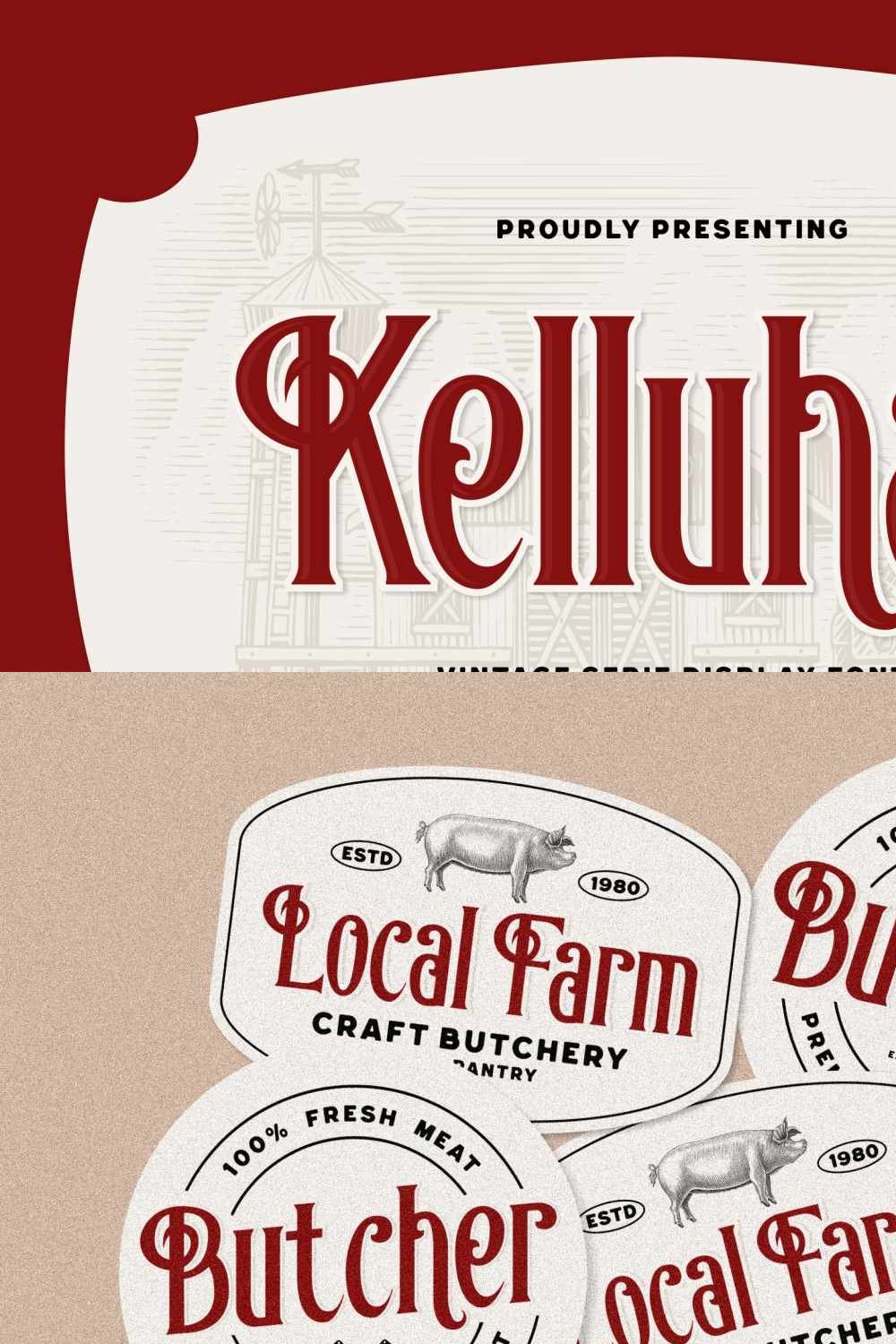
Kelluhan is a vintage typeface with visual elegance, smooth curves, and beautiful ligatures clear, making your work look true and attractive.
A very versatile font that works in both large and small sizes. This font is suitable for a wide variety of projects such as invitations, logos, branding, magazine, photography, card, product packaging, mugs, quotes, poster, labels, signatures and more.
A font that is perfect for all business sectors including personal projects, studio, corporate, creative agency, industrial, company, etc.
Features:
Uppercase and Lowercase
Punctuation, Number, and Symbol
Multilingual Support ÀÁÂÃÄÅÆÇÈÉÊËÌÍÎÏÐÑÒÓÔÕÖØÙÚÛÜÝ